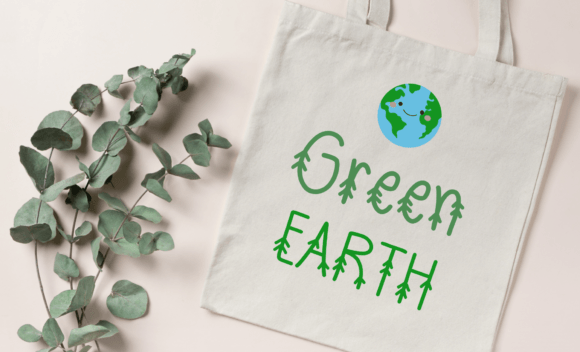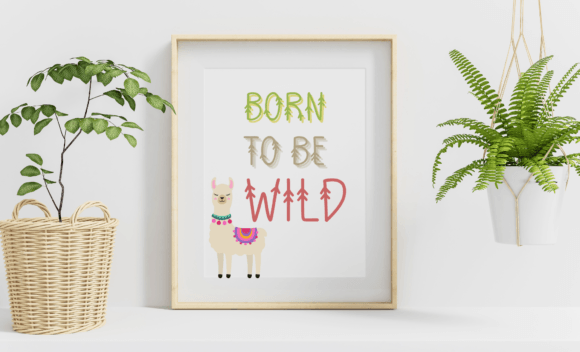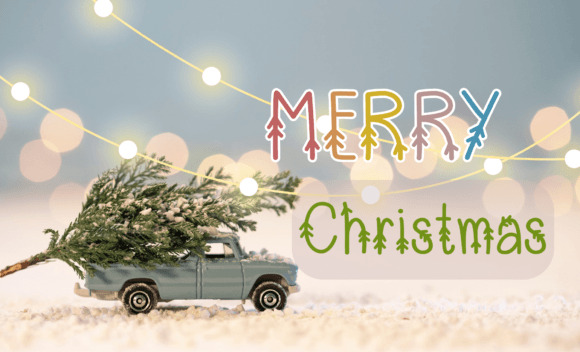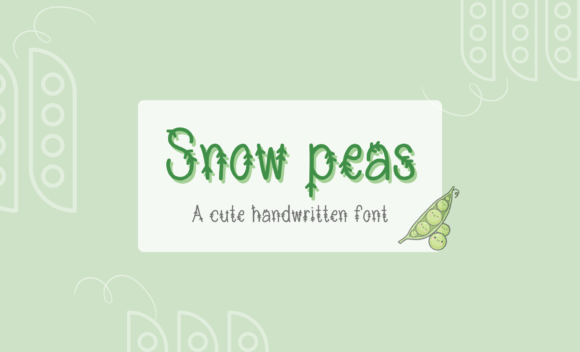
Introduction to Snow Peas Font
Snow Peas is a handwritten font that is cute, playful, neat, and clean.
It is good for digital prints, phrases for Facebook and Instagram, planners, journals, and any occasion presentation .
Key Features of Snow Peas Font